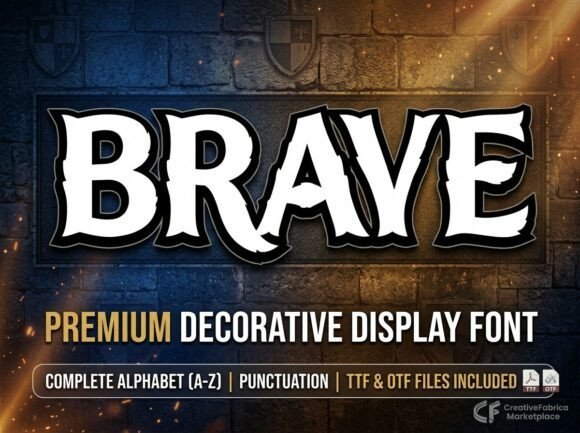
The Moment That Changes Everything
There’s nothing quite like the rush of creativity when a design comes together in a flash of inspiration. It’s the moment when all the elements align, and your vision is finally brought to life. But, what happens when that vision demands something more – something that truly stands out from the crowd? That’s where the Brave Font comes in – a game-changing decorative display font engineered to be the focal point of any composition.
This stunning typeface is designed for the bold and the fearless, those who refuse to blend in and crave a visual personality that commands attention. With its unique artistic flourishes and high-end, polished finish, the Brave Font is the perfect tool for designers looking to make a lasting impression.
Whether you’re working on a luxury packaging project, conceptual editorial layouts, or high-impact headlines, the Brave Font is sure to elevate your design to new heights.
Key Features of Brave Font
- Unique Characteristics: Brave Font features a bold and modern design, with a unique blend of geometric and organic elements that give it a distinctive look and feel.
- Font Weight and Style: Brave Font is available in multiple weights, including light, regular, bold, and black, as well as various styles, such as italic and oblique.
- Scalability: Brave Font is designed to be highly scalable, making it suitable for use in a wide range of applications, from small text to large headlines.
Brave Font Review
I recently had the chance to work with the Brave Font, and I must say it’s an interesting addition to any design project. ✨ The font’s bold, adventurous feel can add a lot of personality to your work, and its compatibility with a wide range of devices is a definite plus.
Here are some of the things that worked well for me:
- ✨ Unique design aesthetic: Brave Font has a distinctive look that can help your work stand out from the crowd.
- ✨ High legibility: Even at smaller font sizes, Brave Font remains easy to read.
However, I did encounter a few limitations:
- ⚠️ Limited font weights: Brave Font is only available in a few weights, which can limit your design options.
Overall, I think Brave Font is a great choice for designers who want to add some edge to their work. While it’s not perfect, its unique design and high legibility make it a solid addition to any font library.
The Brave Font is a great choice for headings and titles due to its bold and confident look. It’s also suitable for use in logos and branding materials. To get the most out of the Brave Font, use it in combination with other bold and contrasting fonts to create a visually appealing design.